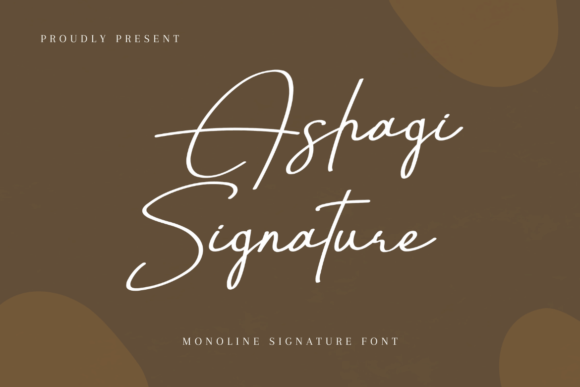
Step into the realm of elegance and grace with Ashagi Signature Font, a captivating monoline script font crafted by the skilled artisans at Liarttype. This masterpiece is not just a font; it's an expression of your refined taste and discerning eye for beauty. With its smooth, flowing lines and an air of effortless charm, Ashagi Signature Font transforms your words into works of art.
Ashagi Signature Font's allure lies in its simplicity and versatility. Its timeless design transcends trends, making it a perfect choice for a wide range of projects, from elegant wedding invitations to sophisticated business documents. Whether you're a creative professional seeking to add a touch of sophistication to your designs or a discerning individual desiring a unique signature font, Ashagi Signature Font is your perfect companion.
Imagine your signature gracing the bottom of a formal letter, exuding confidence and professionalism. Picture your wedding invitations adorned with Ashagi Signature Font, hinting at the beauty and elegance of your special day. Envision your creative projects taking on a new level of refinement, thanks to this remarkable font's ability to elevate ordinary words into extraordinary expressions.
With Ashagi Signature Font, you're not just downloading a font; you're acquiring a timeless treasure, a testament to your impeccable taste and unwavering pursuit of excellence. Its versatility and charm will captivate your audience, leaving a lasting impression that speaks volumes about your attention to detail and appreciation for the finer things in life.